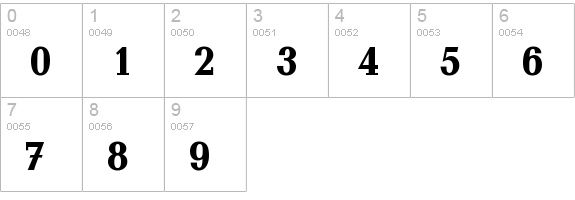
Quantity-Bold Font Details
Quantity-Bold is a strong, high-contrast variant in the Quantity typeface family \xE2\x80\x94 well suited to headlines, attention-grabbing titles, and strong calls-to-action.
Quantity-Bold font is a versatile and eye-catching typeface that exudes a sense of strength and boldness. With its clean lines and commanding presence, this font is perfect for making a statement in any design project. Whether you're creating posters, logos, or social media graphics, Quantity-Bold will ensure your message is delivered loud and clear. What's even better is that Quantity-Bold font is available for free download at FontsMarket.com. This means you can easily add this powerful font to your collection without breaking the bank. Don't miss out on the opportunity to enhance your designs with the striking aesthetic of Quantity-Bold font. Download it today and let your creativity shine!